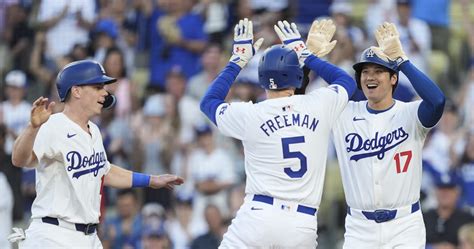
Create LA Dodgers Text & Fonts: A Fun Guide!
Hey guys! Are you a die-hard Los Angeles Dodgers fan? Do you love everything about the Boys in Blue? Well, if you’re like me, you probably enjoy expressing your team spirit in every way possible. And what better way to do that than with LA Dodgers text and fonts ? Whether you’re designing social media posts, creating custom merchandise, or just want to add some Dodger flair to your projects, having access to the right fonts is key. In this article, we’ll dive deep into the world of LA Dodgers text font generators , exploring how you can easily create amazing text and fonts that scream “Go Dodgers!” We’ll cover everything from finding the right fonts to using them effectively in your designs. Let’s get started and make your love for the Dodgers shine!
Finding the Perfect LA Dodgers Font
First things first: finding the perfect LA Dodgers font . Now, this might seem like a simple task, but trust me, there’s a bit of a hunt involved to get the real deal. Officially, the Dodgers use specific fonts for their branding, and these are often proprietary. However, we can get pretty darn close with some clever sleuthing and a little bit of design know-how. One of the primary fonts you’ll see associated with the Dodgers is a variation of the classic “Block” font . This font is bold, strong, and instantly recognizable. It’s the kind of font that makes a statement, just like the Dodgers on the field. To find a similar font, you can start by searching for “Block fonts” or “Sans-serif fonts” online. There are tons of free and paid font resources out there, like Google Fonts, DaFont, and Font Squirrel . When you’re searching, keep an eye out for fonts that are thick, clean, and have a similar feel to the Dodgers’ official font. You might not find an exact match, but you can definitely find something that captures the essence of the Dodgers’ brand. Another key element is the color. While the font itself is important, so is the color. The Dodgers’ colors are, of course, Dodger Blue and white. So, when you’re using your chosen font, make sure to pair it with these iconic colors to really make your design pop. Using the right font combined with the correct color palette will take your designs from okay to outstanding.
Where to Find LA Dodgers Fonts
Using an LA Dodgers Text Font Generator
Alright, so you’ve found your fonts, now what? This is where an LA Dodgers text font generator comes in handy. These generators are online tools that allow you to quickly create text using a variety of fonts and styles. They’re super easy to use, and they’re a great way to experiment with different looks without having to install any software. One of the best things about these generators is their simplicity. Most of them have a user-friendly interface where you can type in your text, select your font, and customize the color, size, and other style options. You can usually see a preview of your text in real time, so you can make adjustments until you’re happy with the result. There are tons of online generators available, and many of them are free to use. Just search for “text font generator” or “font generator” online, and you’ll find plenty of options. When you’re using a generator, you’ll typically have the option to download your text as an image file, like a PNG or JPEG. This allows you to easily incorporate your text into your designs, social media posts, or any other project. Some generators also allow you to copy and paste the text directly, which is great for things like email signatures or website headers. The best text font generators will also let you customize the text with effects like outlines, shadows, and gradients. These effects can add an extra layer of visual interest to your text and make it really stand out. Don’t be afraid to experiment with different effects to see what looks best. Remember, the goal is to create text that not only represents your favorite team but also looks great.
How to Use an LA Dodgers Text Generator
Using an LA Dodgers text generator is a piece of cake. First, you’ll need to find a generator that you like. There are tons of them out there, so I recommend trying a few different ones to see which one works best for you. Once you’ve found a generator, the first step is usually to type in your text. This could be anything from “Go Dodgers!” to your favorite player’s name or a custom message. Next, you’ll want to select your font. This is where you’ll use the fonts you downloaded earlier. Most generators will have a dropdown menu where you can choose from the fonts installed on your computer. If you’re using a web-based generator, it might have a limited selection of pre-loaded fonts. If the generator doesn’t have the font you want, you might need to find a different generator or use a design program like Photoshop or Canva. After you’ve selected your font, you can customize the appearance of your text. This usually includes options for color, size, and style. You’ll want to use the Dodgers’ signature colors, Dodger Blue and white, to really make your text pop. You can also adjust the size of the text to fit your design. Many generators will also have options for adding effects like outlines, shadows, and gradients. These effects can add an extra layer of visual interest to your text and make it look more professional. Once you’re happy with the way your text looks, you can usually download it as an image file. The most common file formats are PNG and JPEG. PNG files are great for text because they support transparency, meaning you can place your text on top of any background without a white box around it. JPEG files are good for photos and images with a lot of detail. The last step is to incorporate your text into your design. You can upload the image to social media, use it in a poster, or add it to a t-shirt design. The possibilities are endless!
Designing with LA Dodgers Fonts
Now that you know how to find and generate text, let’s talk about how to actually use those LA Dodgers fonts in your designs. Whether you’re a seasoned designer or a complete beginner, there are plenty of ways to create stunning visuals that showcase your Dodgers pride. First, think about where you’ll be using your designs. Are you creating social media posts? Designing a website header? Making a poster? The answer will influence your design choices. For social media, you’ll want to create eye-catching visuals that grab attention. Use bold colors, strong fonts, and clear messaging. Consider creating graphics with player names, team slogans, or game-day announcements. If you’re designing a website header, you’ll want something clean and professional. Use a clean font, like a modern sans-serif font, and a color scheme that complements your website’s overall design. A subtle touch of Dodger Blue can go a long way. For posters and print designs, you have more creative freedom. You can experiment with different layouts, fonts, and colors to create something truly unique. Try incorporating vintage elements or retro designs to give your poster a classic feel. Also, think about the context of your design. Who is your target audience? What message are you trying to convey? Tailoring your design to your audience will help you create something that resonates with them. Consistency is key. Once you’ve chosen your fonts and colors, stick to them throughout your design. This will create a cohesive and professional look. Use the same fonts and colors across your social media posts, website, and other marketing materials to reinforce your brand identity. Also, don’t be afraid to experiment! Try different layouts, fonts, and colors to see what works best. The more you experiment, the better you’ll become at designing effective visuals.
Best Practices for Dodgers-Themed Designs
Here are some best practices to keep in mind when designing with LA Dodgers fonts :
• Use the right fonts. Stick to fonts that are similar to the official Dodgers font, or fonts that have a strong, athletic feel. Avoid fonts that are too playful or whimsical, as they might not convey the right message.
• Stick to the color palette. Use Dodger Blue and white as your primary colors. You can also incorporate other colors, like gray or black, for accents, but make sure the focus remains on the Dodgers’ iconic colors.
• Keep it clean. Avoid cluttering your designs with too much text or too many elements. A clean, simple design is often the most effective.
• Focus on readability. Make sure your text is easy to read, even from a distance. Use a font size that’s appropriate for your design, and avoid using too many different fonts.
• Use high-quality images. If you’re incorporating images into your designs, make sure they’re high-resolution and visually appealing. Images can add a lot of visual interest to your designs, so choose them wisely.
• Consider your audience. Think about who you’re trying to reach with your design. Tailor your message and your visual elements to your target audience.
• Get inspired. Look at other designs for inspiration. Browse through social media, websites, and print materials to see what other designers are doing. You can learn a lot by studying the work of others.
By following these tips, you’ll be well on your way to creating awesome LA Dodgers-themed designs that will make you the envy of every fan. Remember, have fun, be creative, and let your Dodgers pride shine! And don’t forget to “Bleed Blue!”